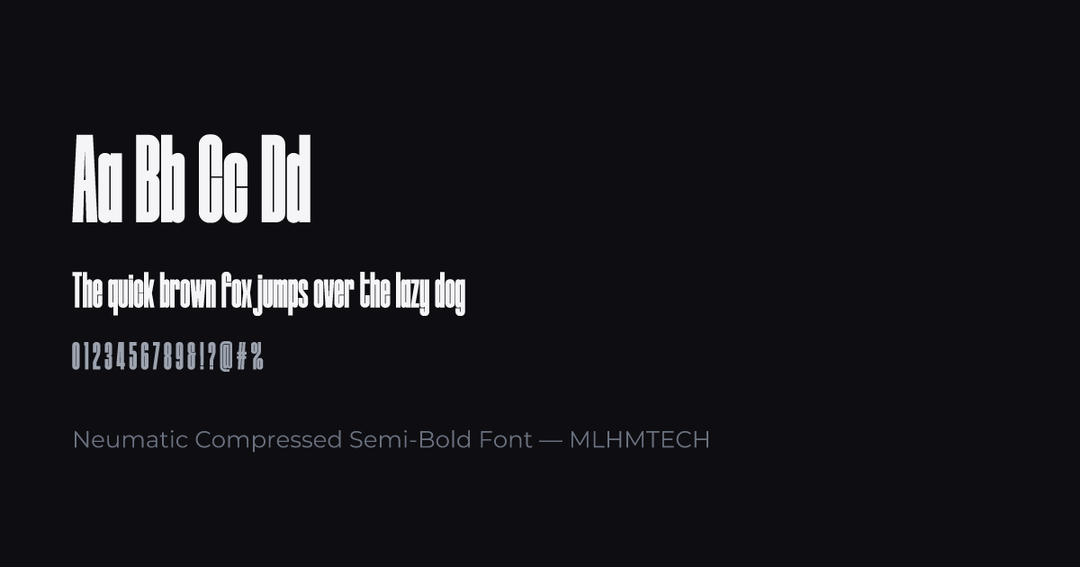
Neumatic Compressed Semi-Bold Font
Neumatic Compressed Semi-Bold is a modern, condensed sans-serif font that adds impact to headlines and branding. Its clean lines and semi-bold weight make it versatile for various design projects.
Neumatic Compressed Semi-Bold is a contemporary condensed sans-serif typeface. Its compressed letterforms and semi-bold weight create a strong, space-efficient look, ideal for headlines, posters, and branding where you need to make a statement without taking up too much horizontal space.
This font is part of the Neumatic family, known for its geometric structure and clean aesthetic. The Semi-Bold weight strikes a balance between readability and visual impact, making it suitable for both print and digital media. Whether you're designing a logo, a website header, or a promotional flyer, this font will add a modern, professional touch.